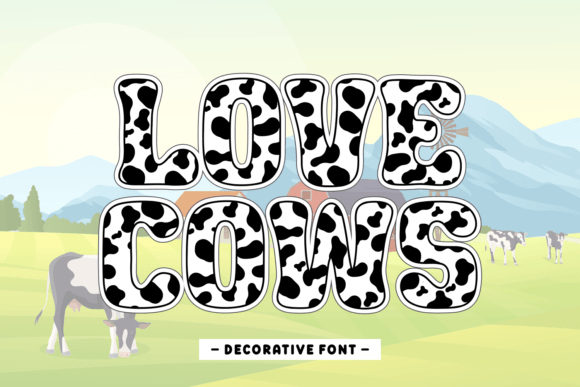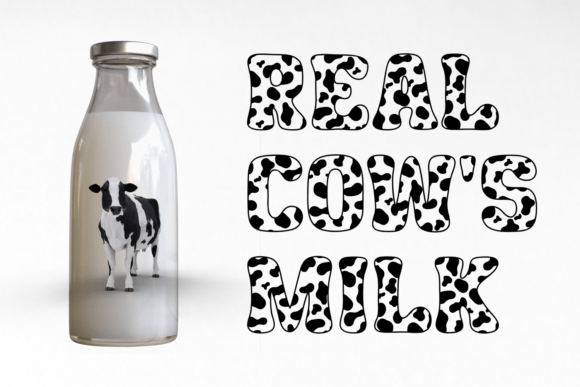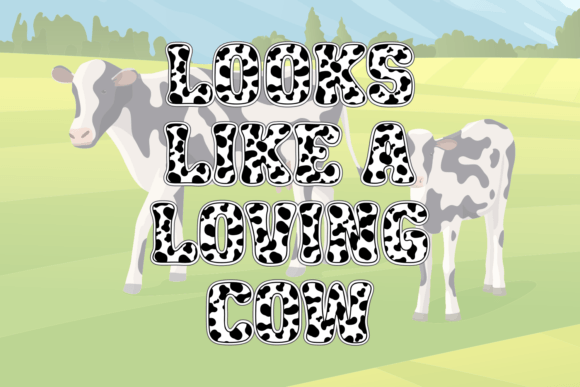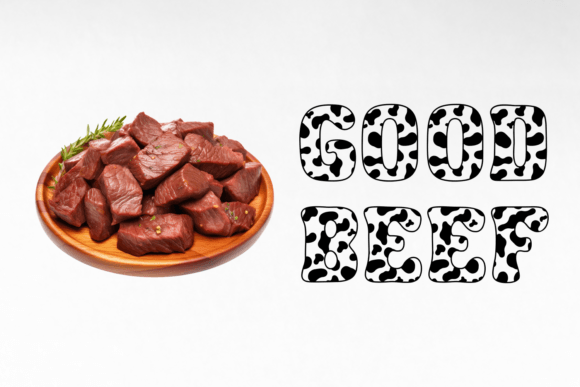
Love Cows Font: A Playful Decorative Font for Cricut & DIY Projects
About the Love Cows Font
Experience the unique personality of Love Cows Font, a font designed for impact. Love Cows is a playful and whimsical typeface that features a distinctive cow pattern incorporated into its design. This font is characterized by its bold letterforms and unique visual style, making it perfect for projects that require a fun and lighthearted aesthetic. Despite its playful aesthetic, the “Brave Cow” font is surprisingly versatile and can be used for a variety of design applications. It works well for headlines, logos, branding materials, packaging, posters, and more, adding a touch of personality and charm to any project.
Love Cows Font Usage Examples
Love Cows Font Example